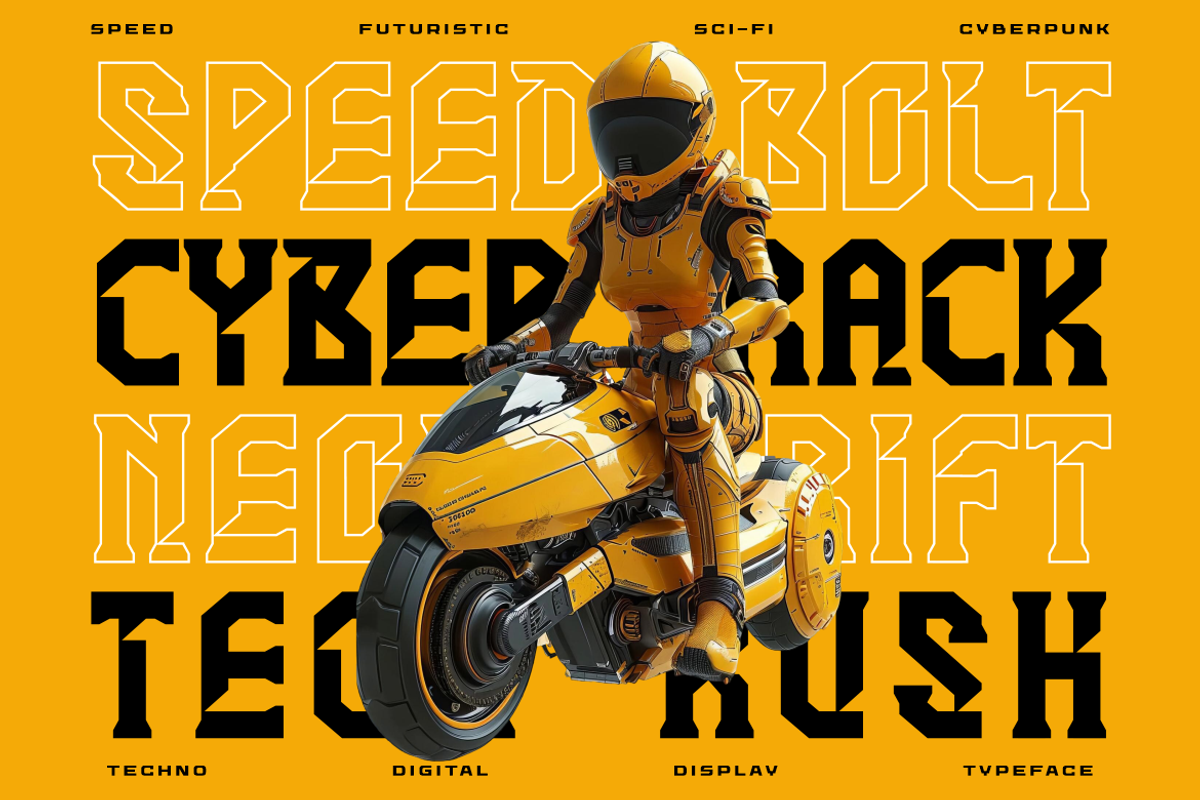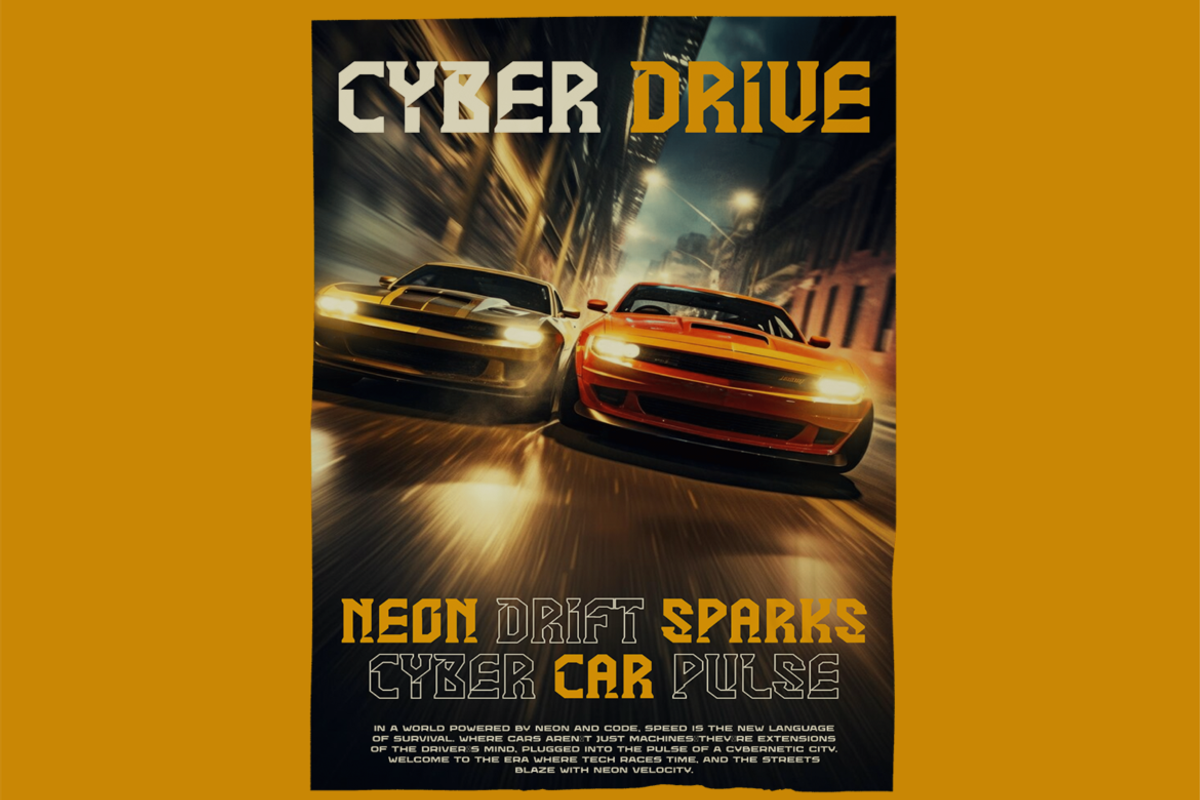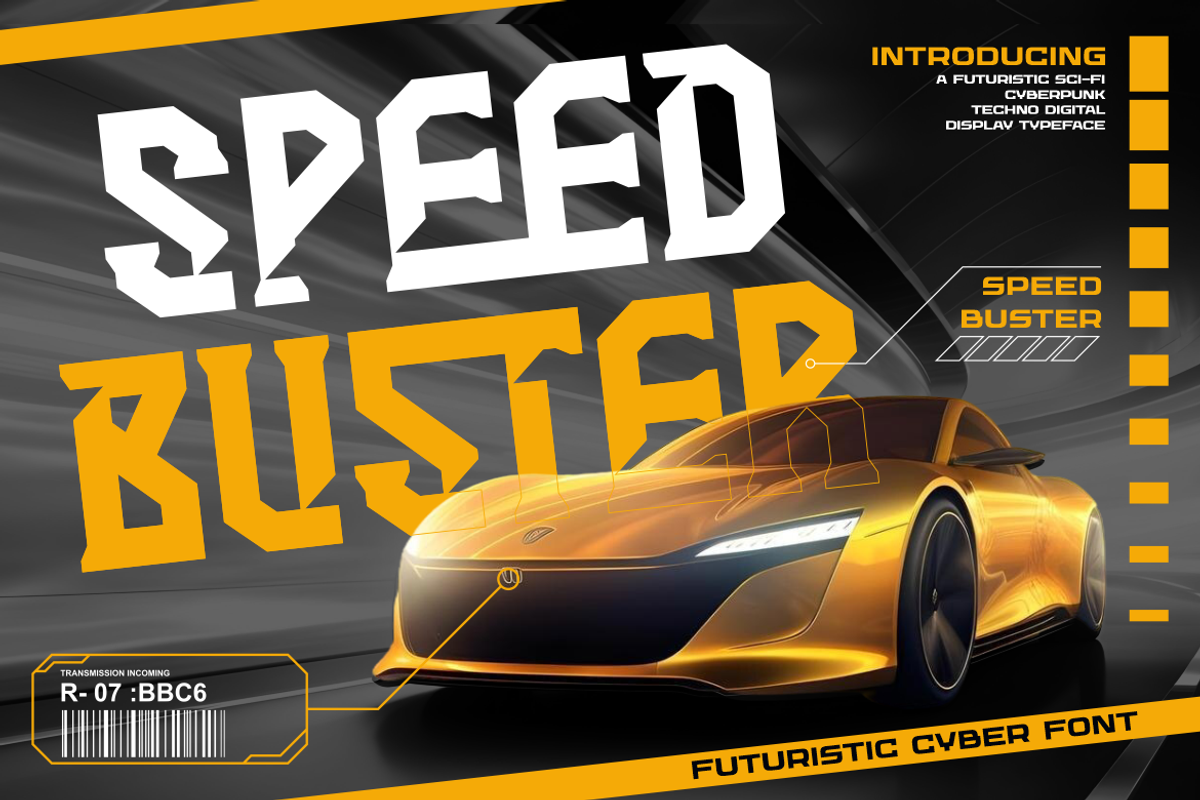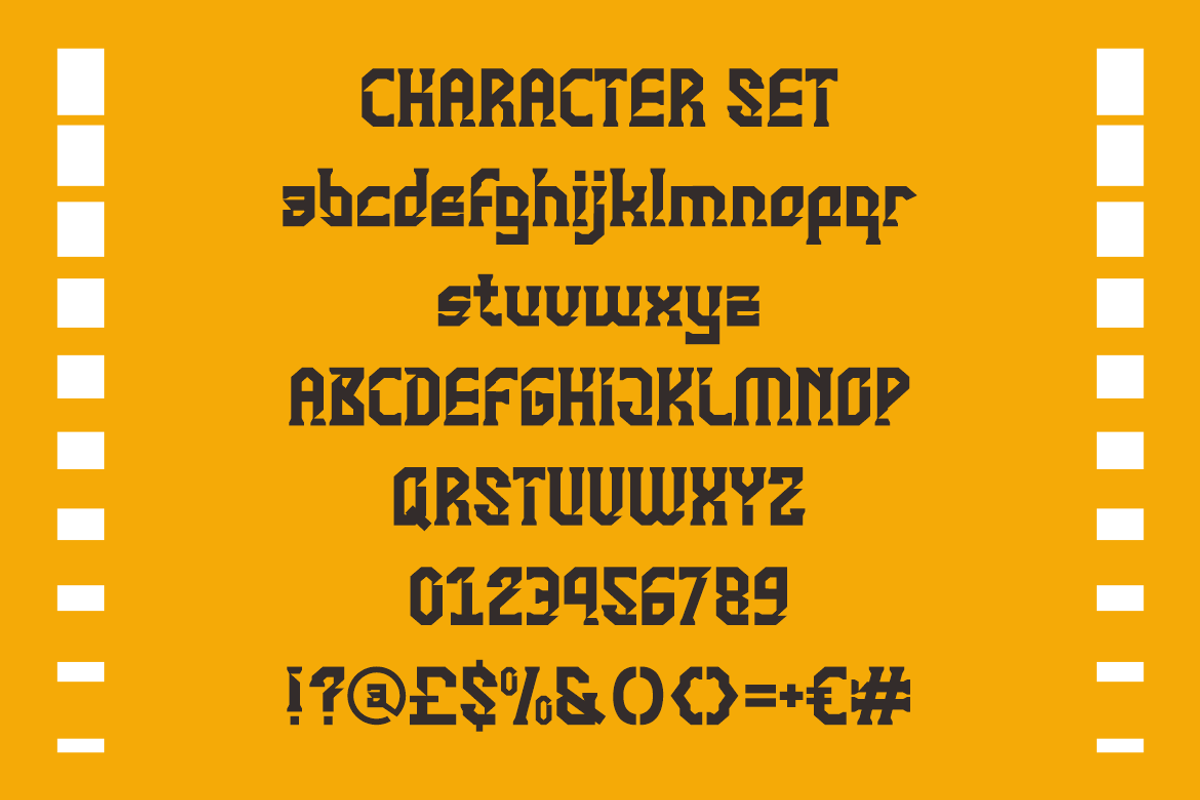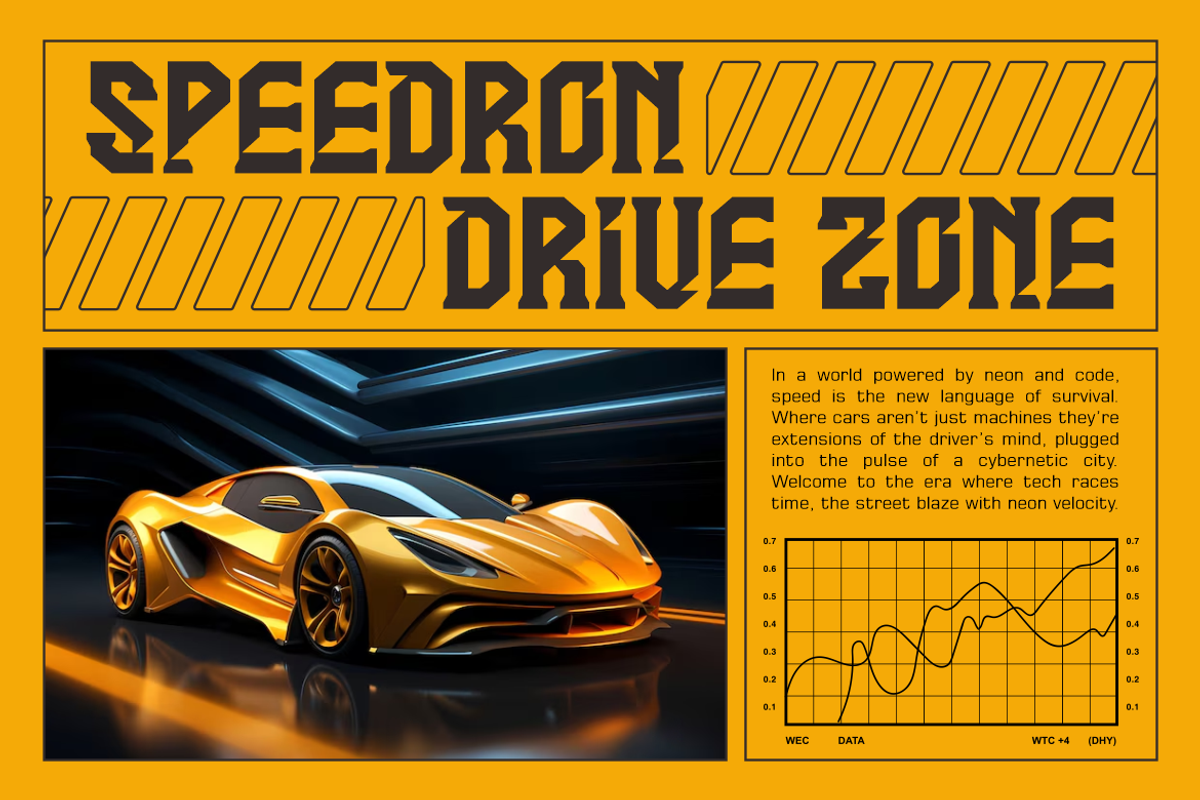
Speed Buster Futuristic Cyberpunk
Speed Buster is a high octane futuristic cyberpunk font engineered for adrenaline driven designs. The font’s letterforms are defined by angular cuts, diagonal terminals, and dynamic contrast, evoking the sensation of speed, velocity, and advanced technology. Each character has a sharp mechanical edge, yet remains readable—ideal for visual branding in high performance industries like motorsports, gaming, and digital tech. The letter structure balances geometric stability and distortion aesthetics, creating a sleek yet intense rhythm that feels like it's always in motion.
Designed to dominate sci fi visuals and esport branding, Speed Buster elevates any design where energy, innovation, and modernity matter. The futuristic layout makes it a bold choice for movie titles, automotive posters, racing gear, or high tech packaging. Whether you're building a game UI, a tech brand, or a YouTube thumbnail, this font delivers immersive impact. It comes with a complete set of uppercase, lowercase, numerals, and symbols to ensure maximum versatility across formats and screen sizes.